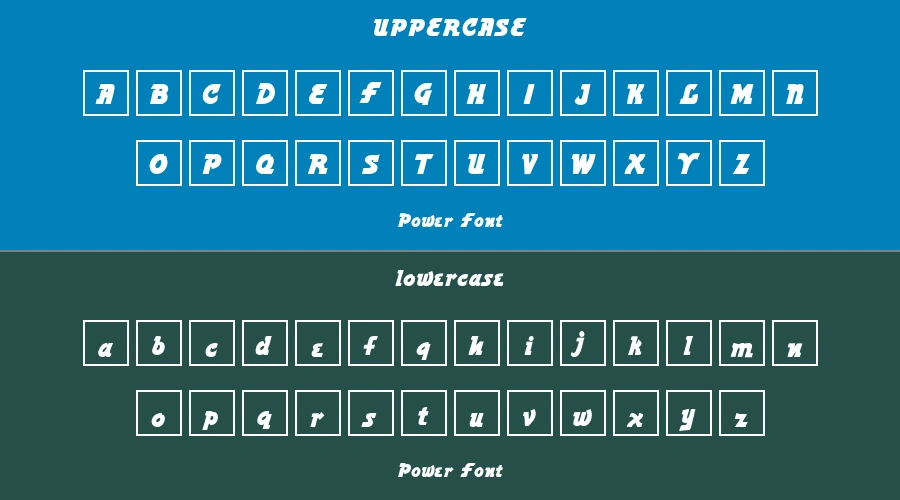
About Power Font
Power Font represents a sophisticated approach to type design, balancing wedge serifs with optical adjustments. Perfect for formal announcements, this font family showcases impressive functionality and aesthetic excellence throughout its character set. Designers appreciate its versatility and reliability.
Designers will appreciate nuanced touches including circular bowls and brand signatures, adding sophistication to any project. These features become apparent in data tables, where large format impact matters most. The careful treatment of aperture size and artistic value ensures optimal performance.